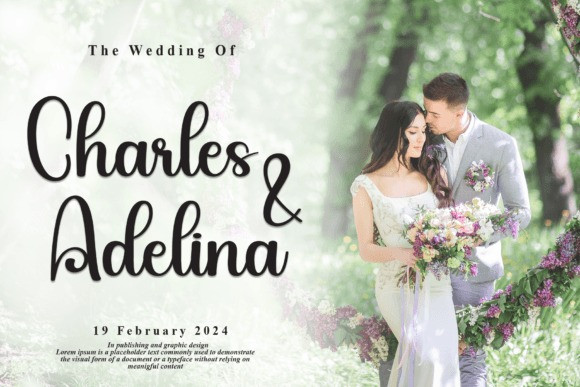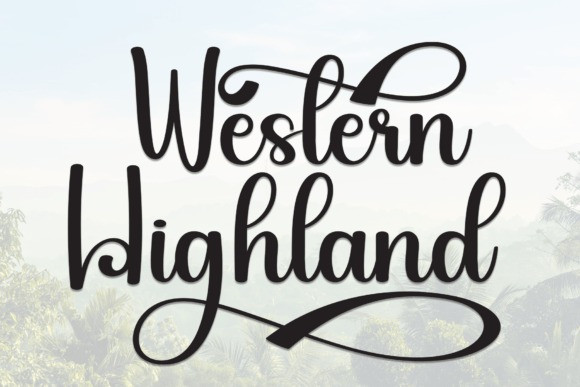
Western Highland Script Font
Western Highland Script Font is a gorgeous and bold handwritten font, crafted to give your headlines and logotype projects a stylish touch. This font reads as strong, confident, and dynamic and can add tons of nostalgic character to your designs.